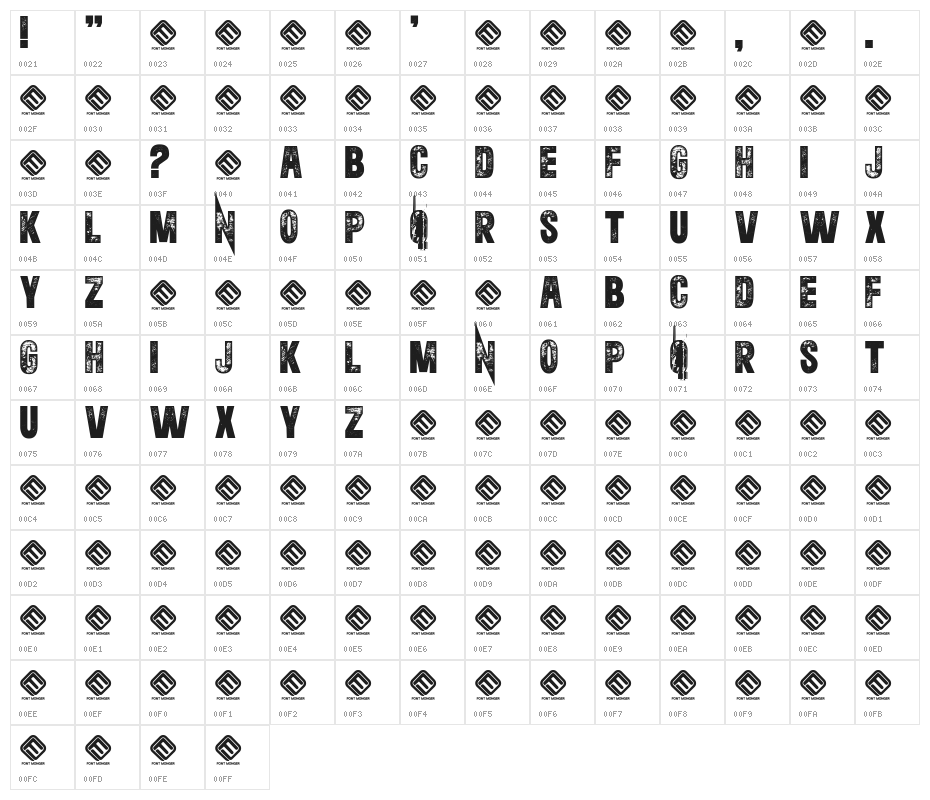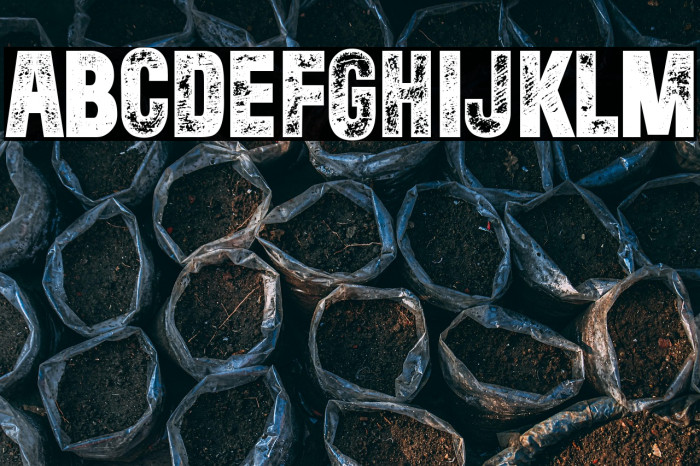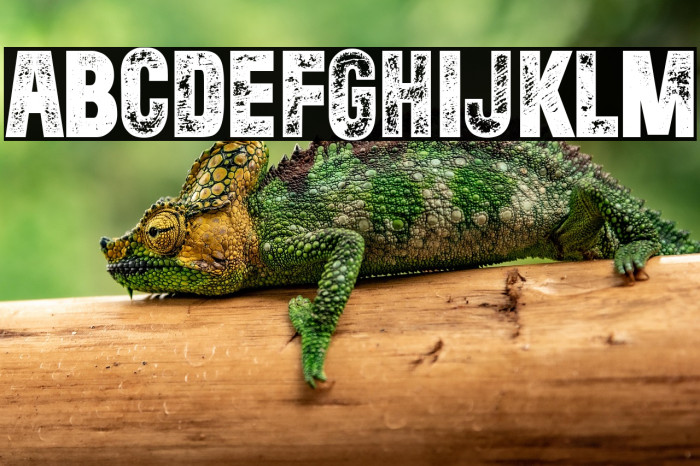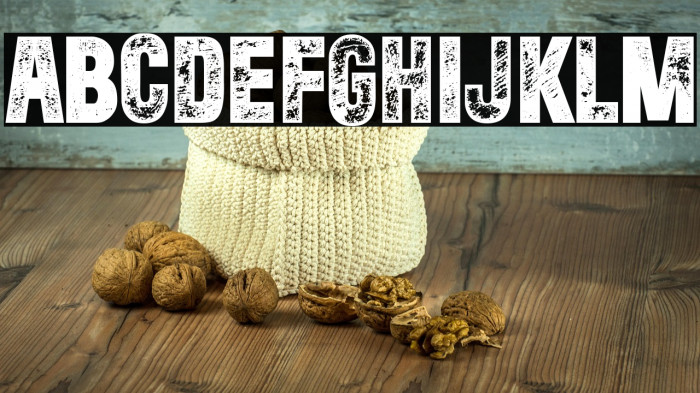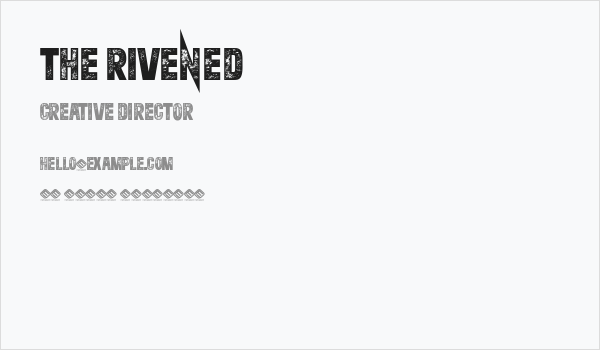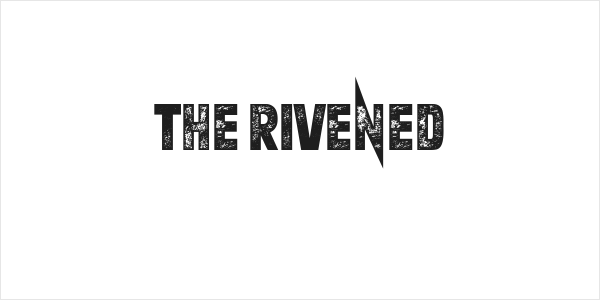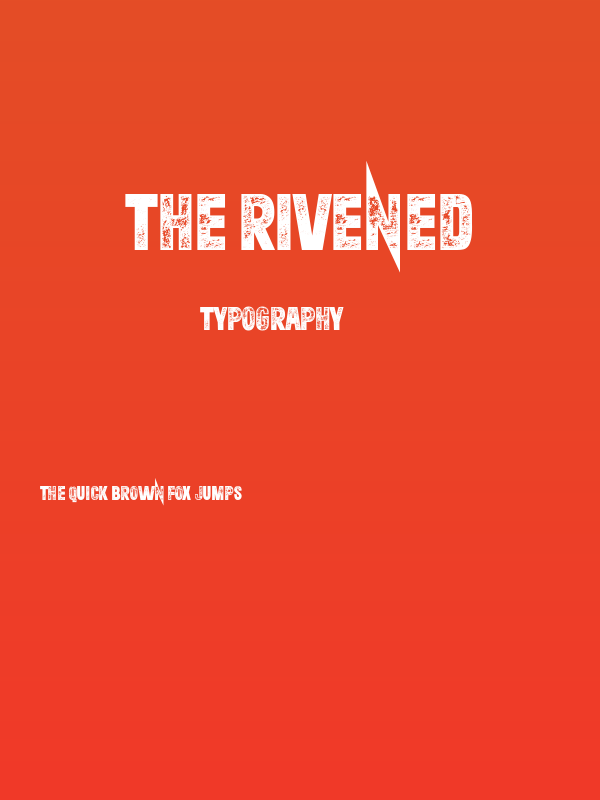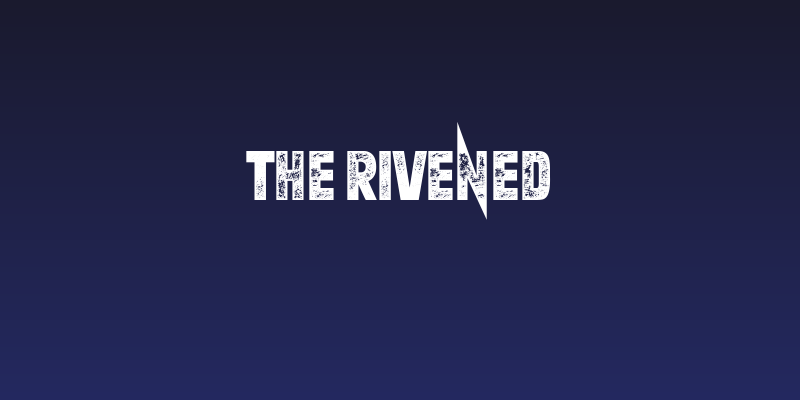
The Rivened Font
The Rivened Description
This font features a bold and distressed style, characterized by a rough texture that gives it a rugged and worn appearance. The uppercase letters are prominent and impactful, making it ideal for attention-grabbing designs. The texture adds a vintage and grunge feel, reminiscent of weathered posters or old signage. The font's boldness ensures high visibility, while the distressed details add a layer of complexity and interest. It's perfect for projects that require a strong, edgy aesthetic, such as album covers, posters, or branding for alternative or rock-themed events.
| Overall Style | Vintage, Grunge |
| Proposed Projects | Ideal for album covers, posters, branding for alternative or rock-themed events, and any design needing a strong, edgy aesthetic. |